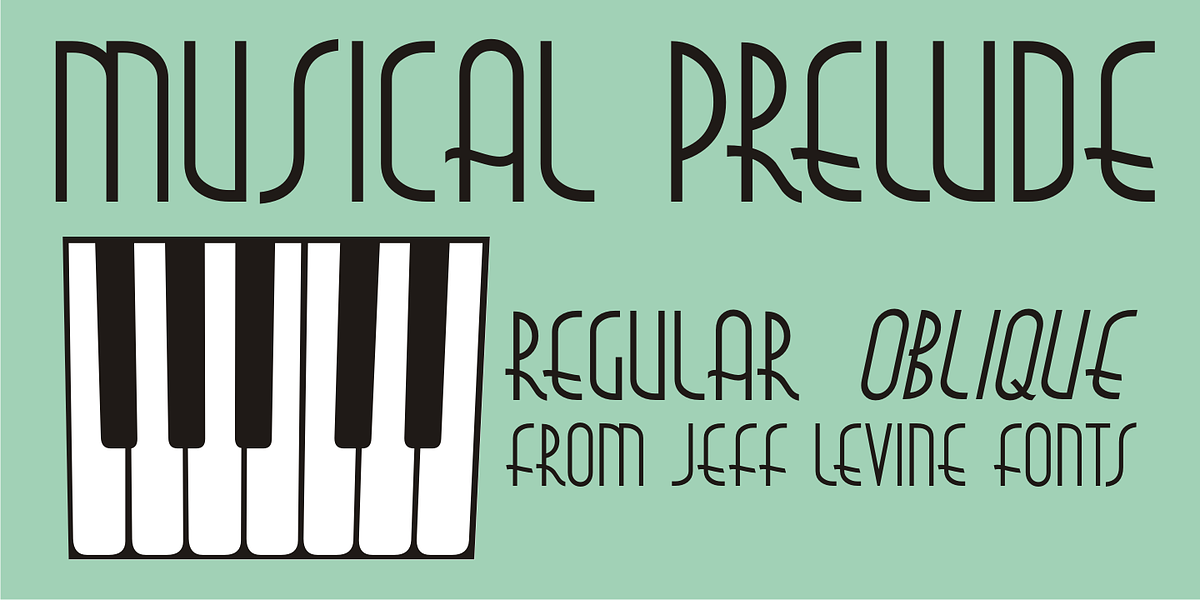
Musical Prelude JNL
Musical Prelude JNL is a thin Art Deco typeface with some interesting character shapes and was inspired by the hand lettering on the cover of the 1933 sheet music for “Blue Prelude” by Gordon Jenkins and Joe Bishop.
It is available in both regular and oblique versions.